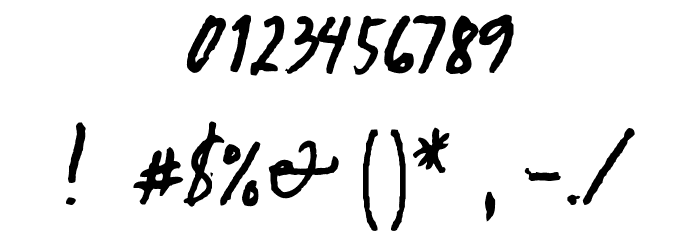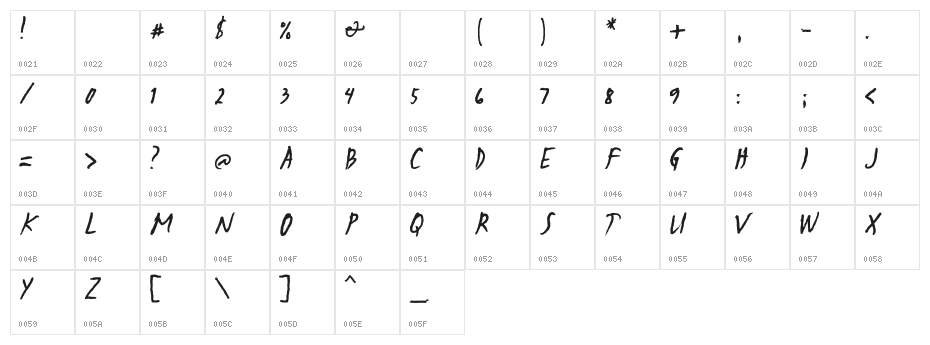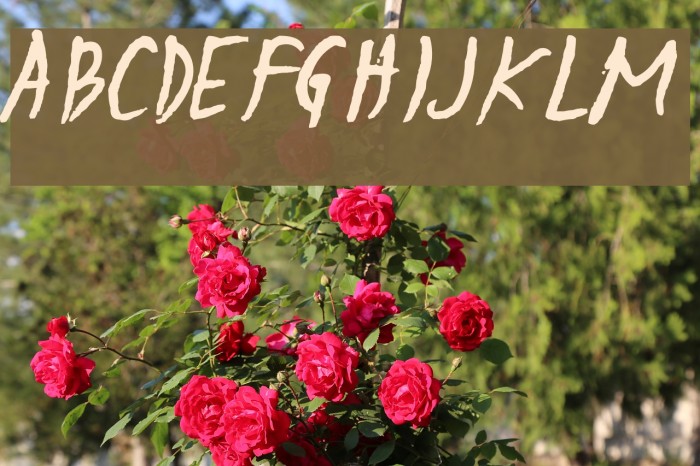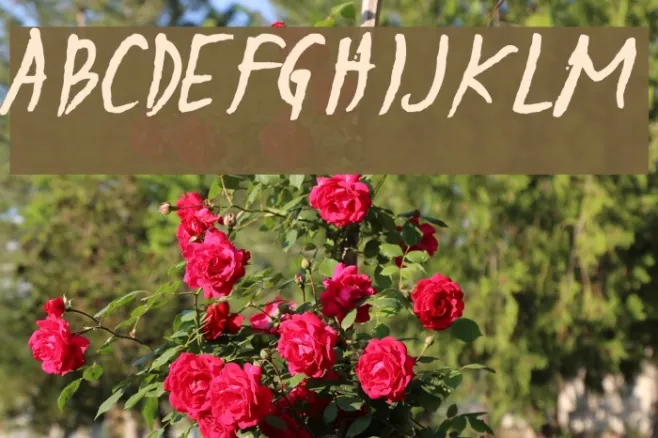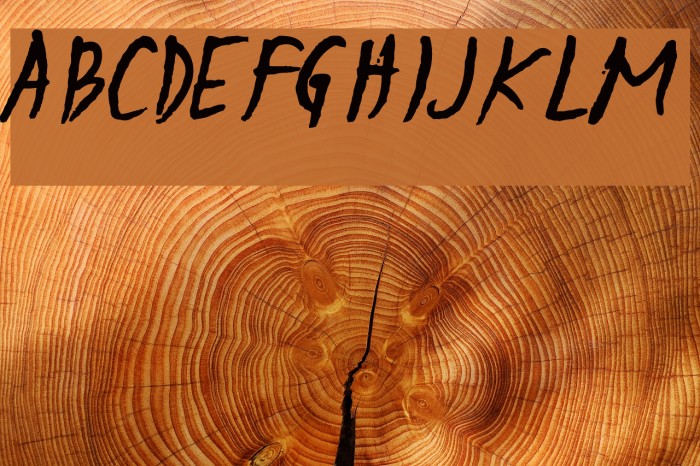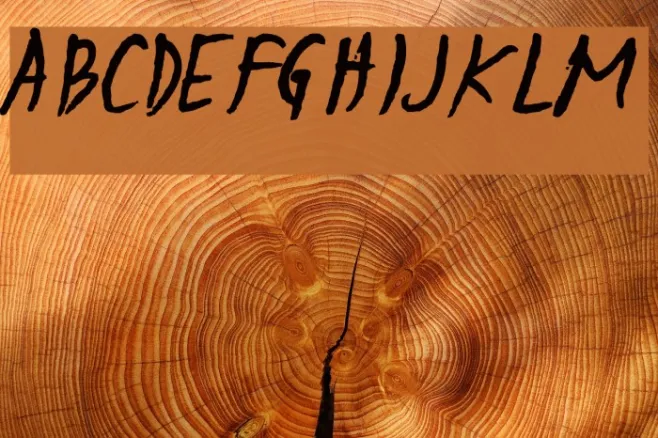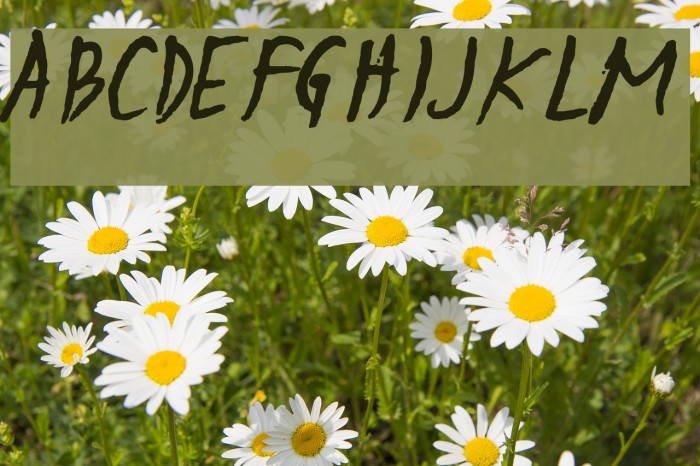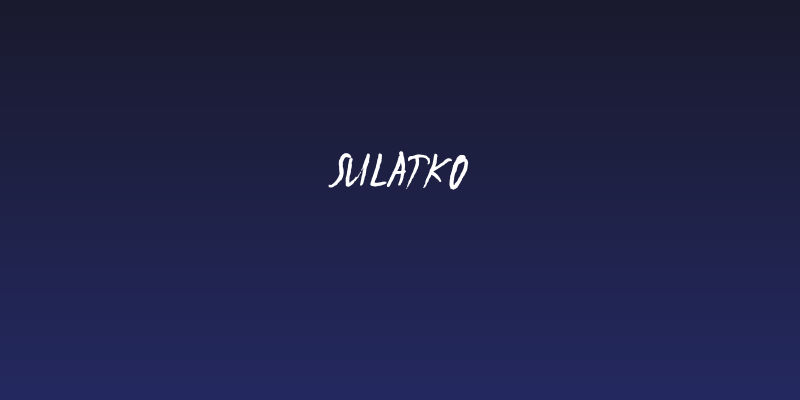
Sulatko Font
Sulatko Description
This font exhibits a dynamic and expressive handwritten style, characterized by its fluid and slightly irregular strokes that mimic natural handwriting. The uppercase letters are bold and slightly slanted, while the lowercase letters maintain a consistent flow with varying heights and angles. The numbers and special characters follow the same handwritten aesthetic, adding to the font's cohesive appearance. The overall look is casual yet artistic, making it suitable for projects that require a personal touch.
| Overall Style | Casual, Artistic |
| Use Case | Logos, Invitations, Artistic Posters |
| Proposed Projects | Ideal for personal invitations, greeting cards, artistic posters, and branding that seeks a personal, handwritten feel. |